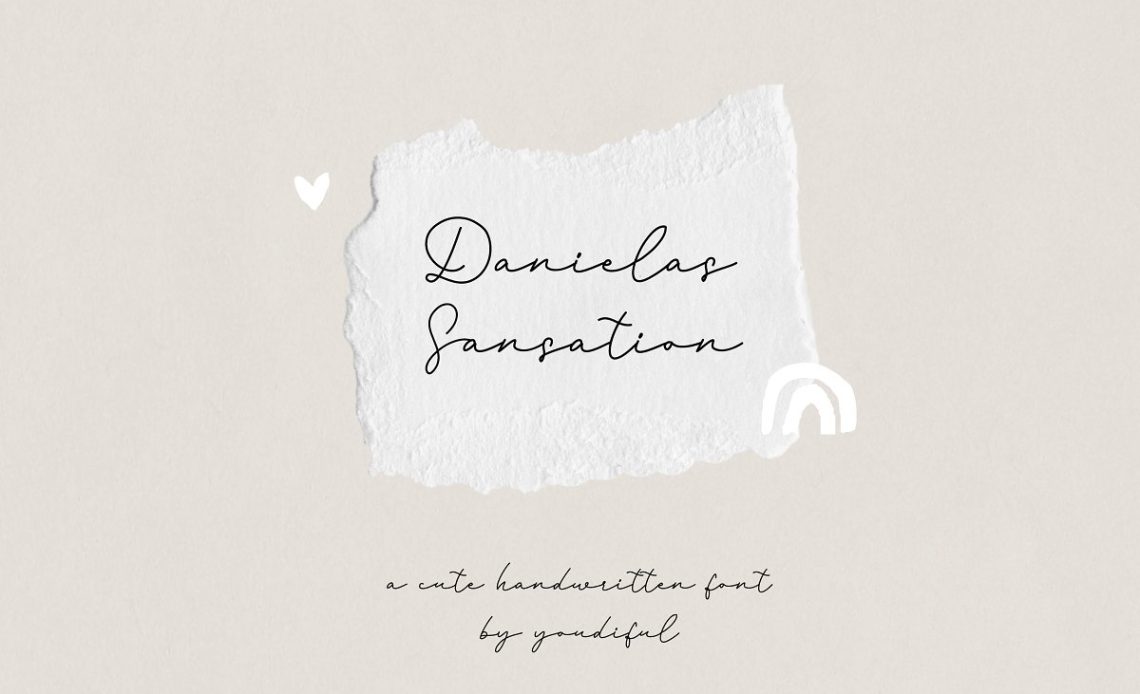
Introducing Danielas Sensation, the captivating handwritten font that will redefine the way you express your creativity! Created by the talented Judith Frietsch, this beautiful script font is an absolute game-changer for all your design needs.
With its clean and elegant strokes, Danielas Sensation adds a touch of sophistication to any project. Whether you're designing a logo, crafting eye-catching headlines, preparing a presentation, or showcasing your beautiful products, this font is here to elevate your work to new heights.
One of the key features that sets Danielas Sensation apart is its versatility. Its script style exudes a sense of warmth and friendliness, making it perfect for a wide range of applications. From elegant wedding invitations to trendy social media posts, this font effortlessly adapts to suit any aesthetic or mood.
But what truly makes Danielas Sensation shine is its seamless integration into your creative process. With just a single font weight available in Regular, this font streamlines your workflow and eliminates any unnecessary distractions. You can focus solely on bringing your vision to life, knowing that Danielas Sensation has your back.
But let's not forget about the emotional impact of Danielas Sensation. This font captures the essence of handcrafted artistry, infusing your projects with a sense of authenticity and personality. Each letter feels like a brushstroke, telling a unique story and captivating your audience's attention.
When it comes to marketing your products or services, Danielas Sensation becomes your secret weapon. Its eye-catching appeal grabs attention, while its elegant charm builds trust and credibility. With this font, you can effortlessly communicate your brand's message and leave a lasting impression on potential customers.